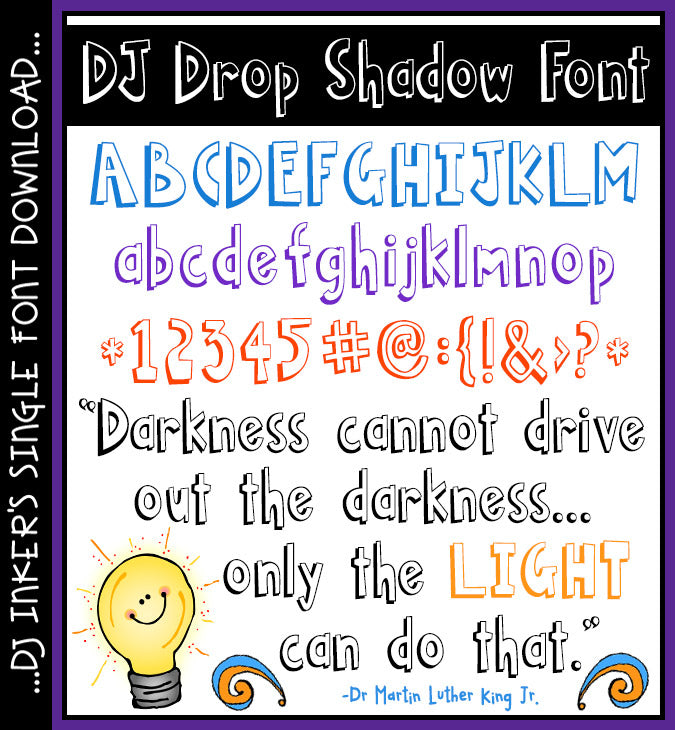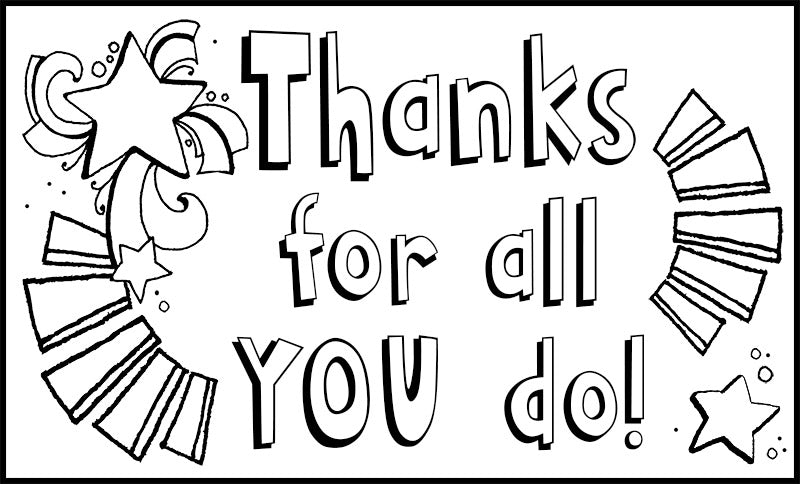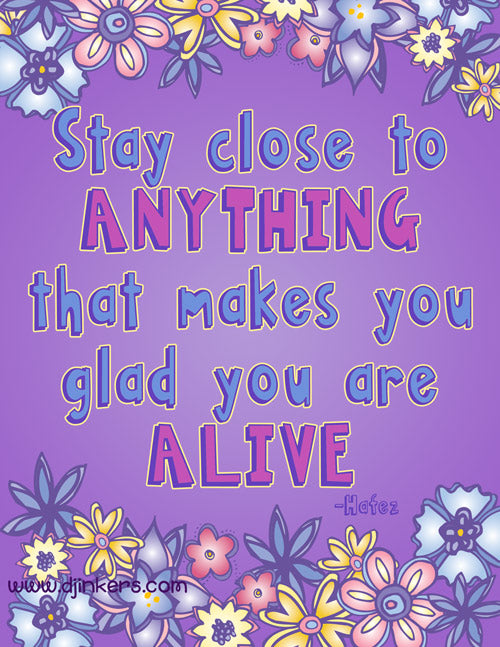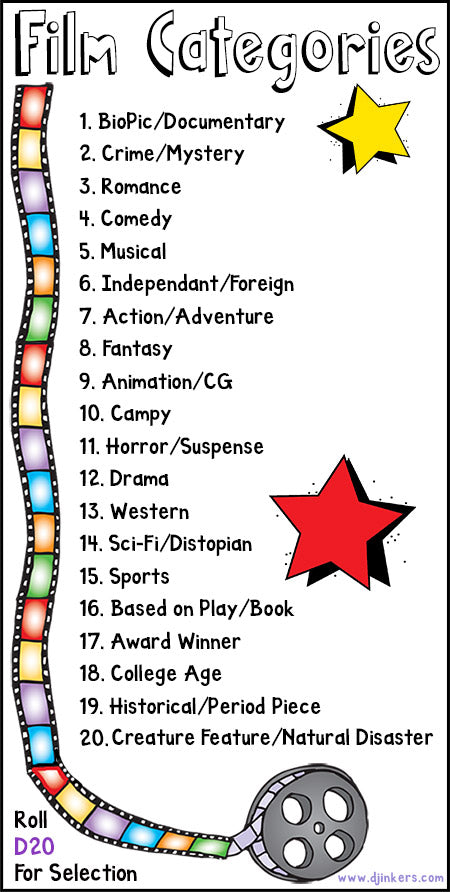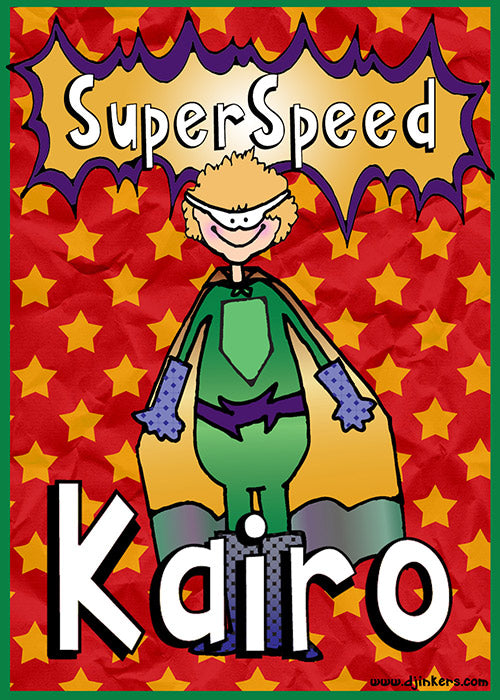
DJ Drop Shadow Font Download
Add depth and dimension to your projects with DJ Inkers' Drop Shadow font! This
bold, versatile font features hand drawn block letters with a fun drop
shadow effect and a striking 3D appearance. Perfect for headlines, posters,
bulletin boards and making your text pop... with a smile.